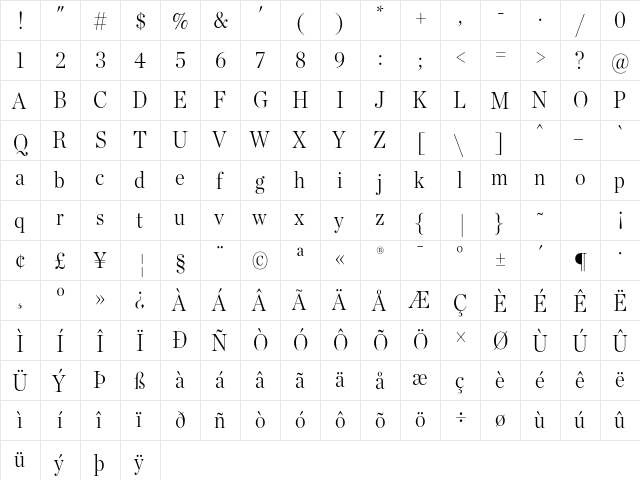
Chronicle Disp Cond Light
| Foundry | Hoefler & Frere-Jones |
| Designer | Hoefler & Frere-Jones |
Design Context for Chronicle Disp Cond Typeface
Chronicle Disp Cond is a composed and adaptable typeface that performs quietly and consistently across a wide range of design contexts. Its slender proportions lend an understated elegance to any composition. The condensed width makes it efficient for tight spaces without sacrificing legibility.